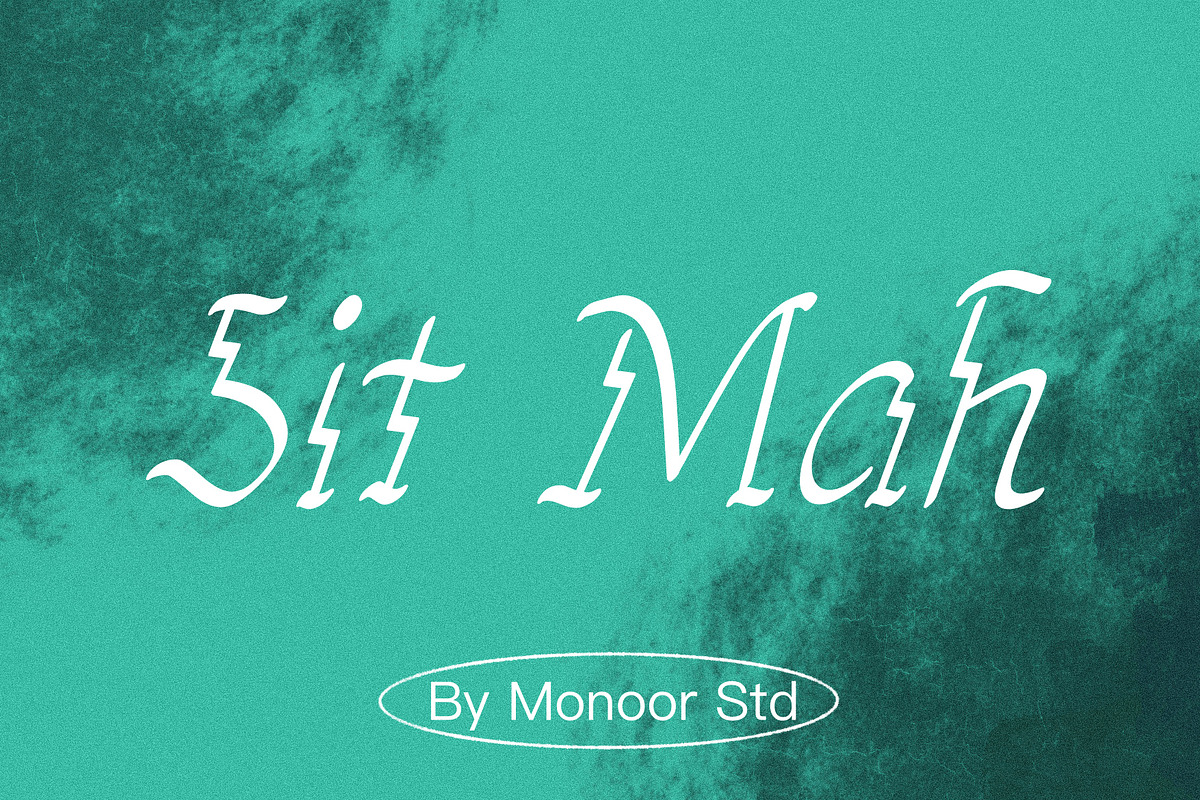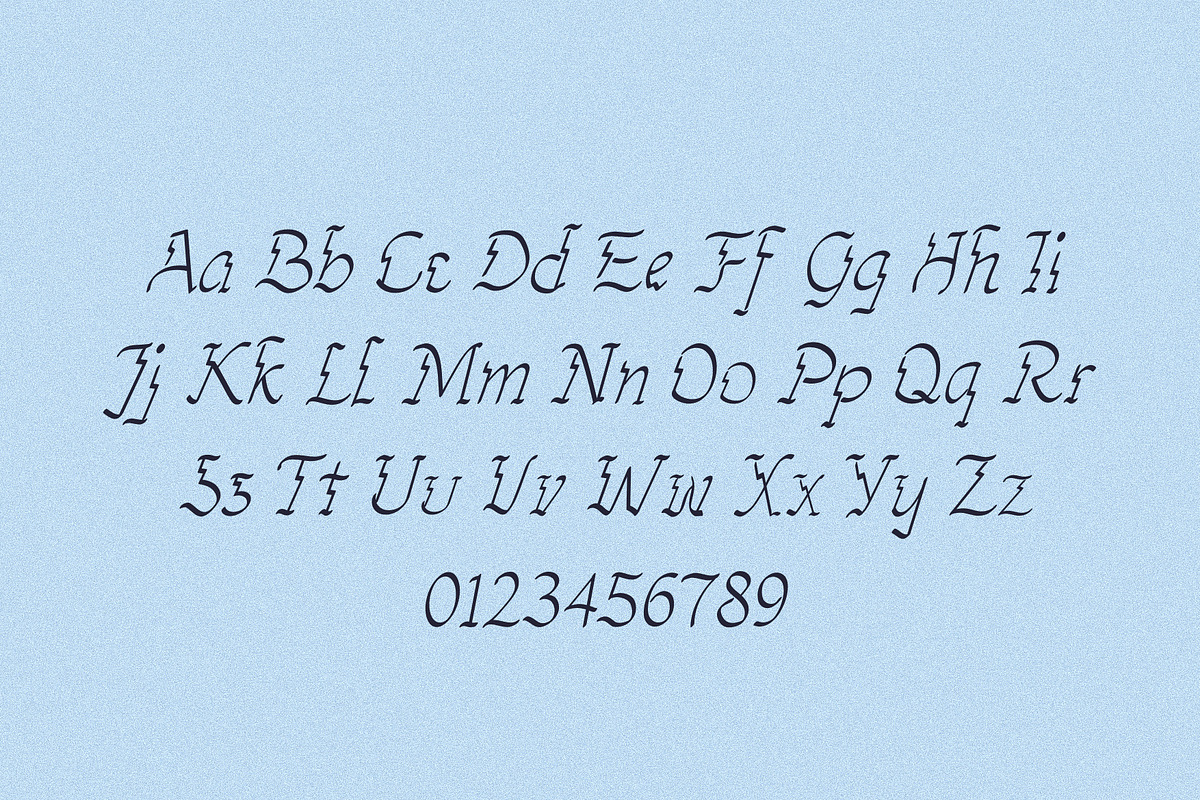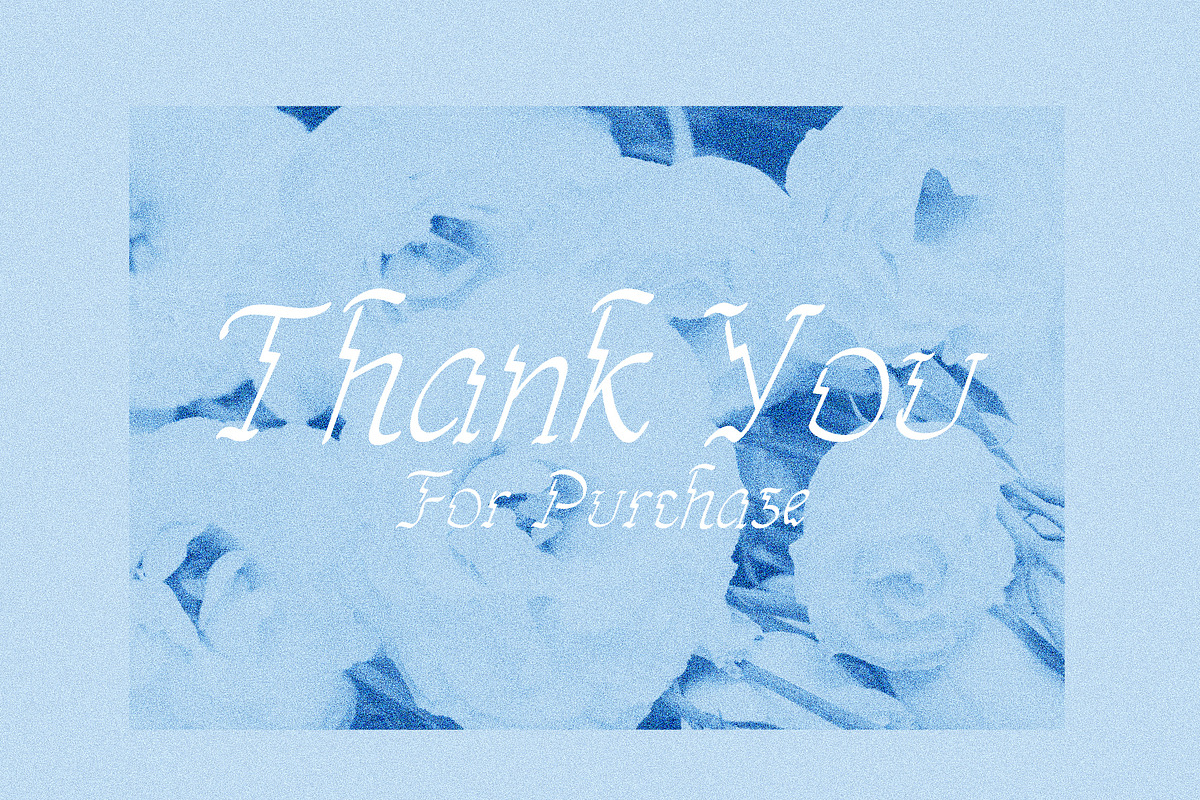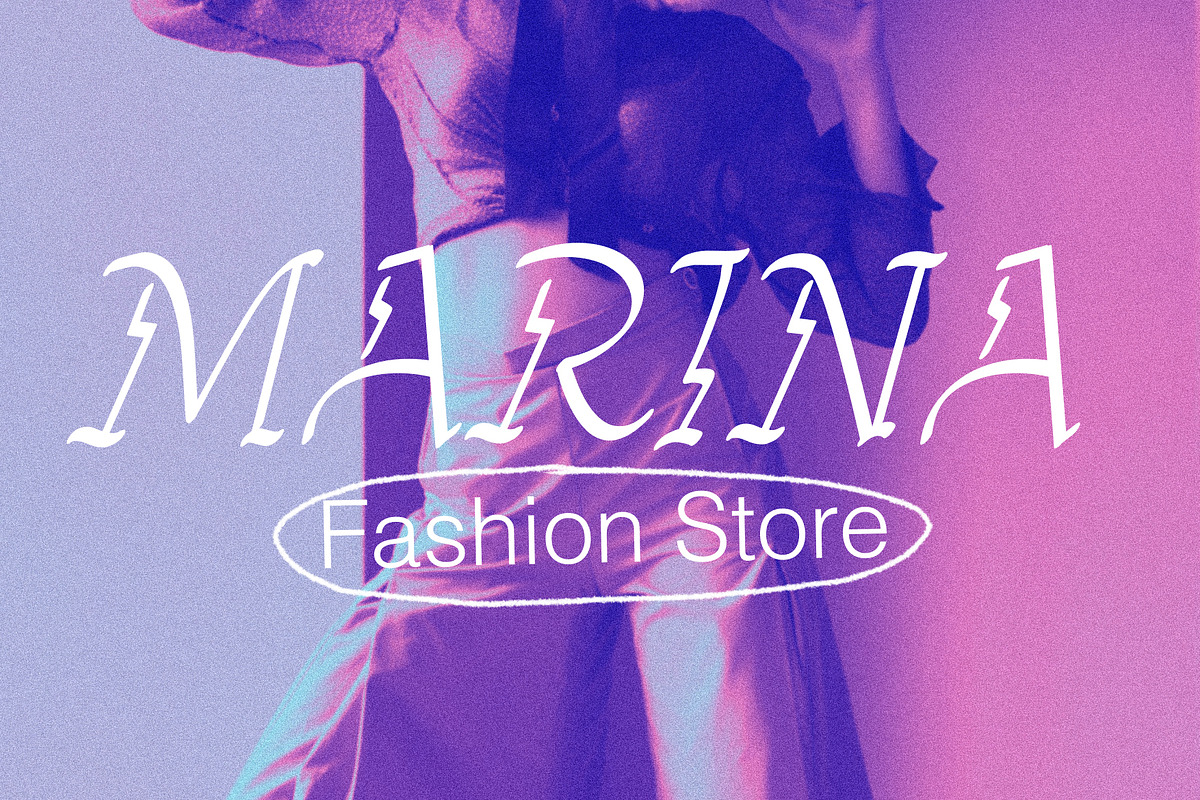
Sit Mah Font
Sit Mah is a modern classic font, which is very suitable for a fashion style brand that wants to look warm and exclusive, has clear readability so it can be applied in all media.